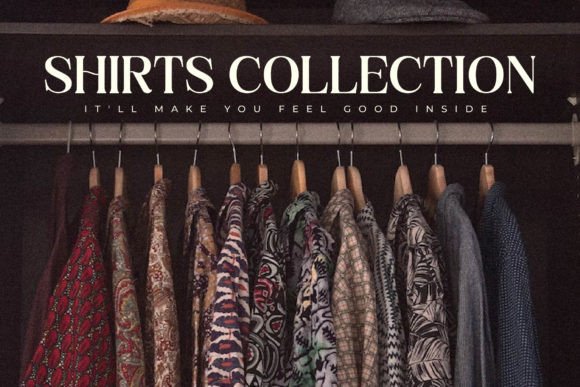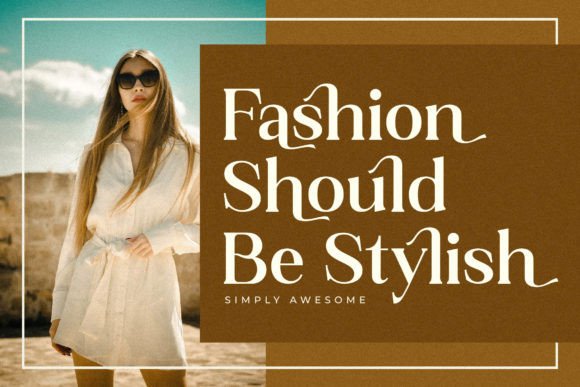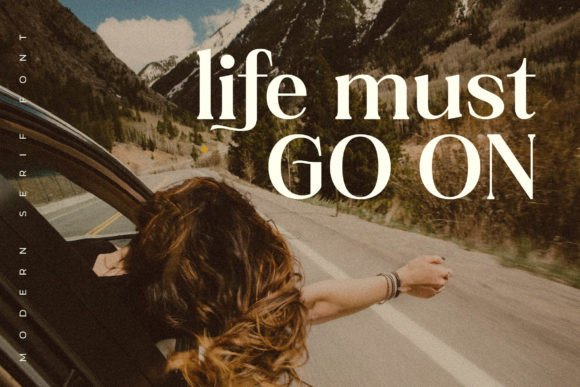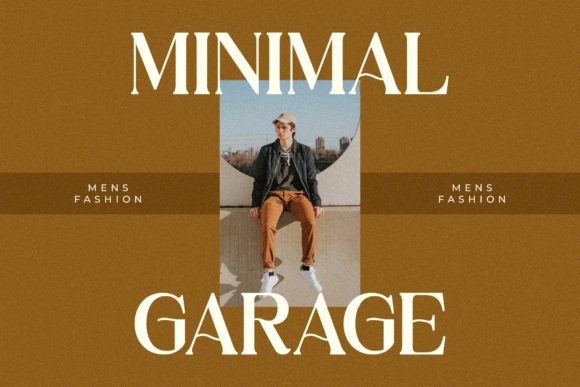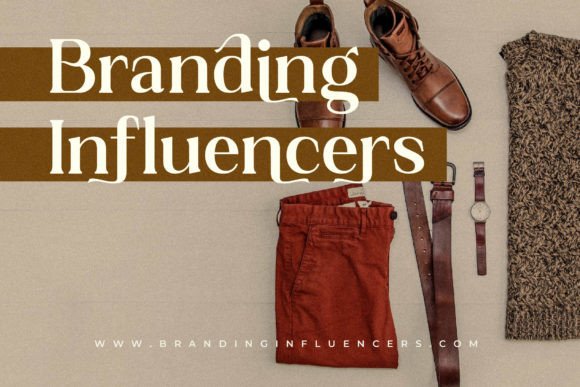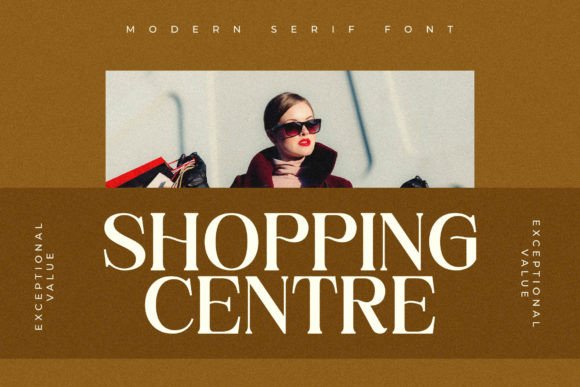
Introduction to Rilenda Font
Rilenda is a modern and stylish serif font.
Its smooth curves and elegant appearance will come in handy when you need to create chic, feminine designs .
Key Features of Rilenda Font
Why Choose Rilenda Font?
Rilenda Font offers exceptional quality and versatility, making it a valuable addition to your design toolkit. Whether you’re creating for personal projects or commercial use, Rilenda Font delivers professional results.